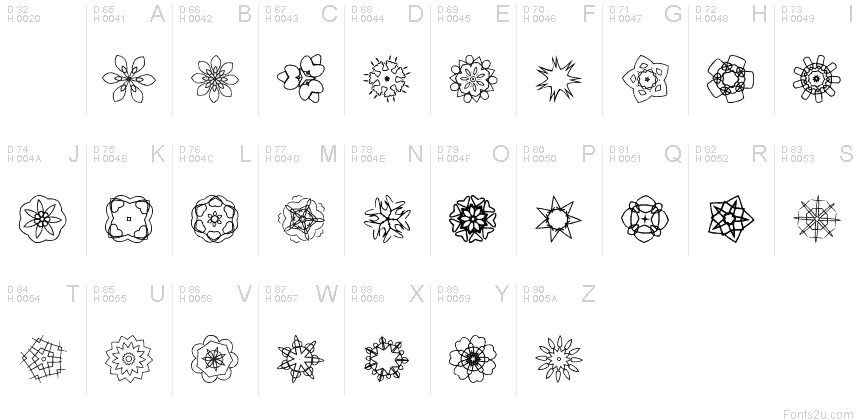
JI Kaleidoscope Bats 3
JI Kaleidoscope Bats 3 font by Jeri Ingalls is a free decorative dingbat typeface. Each glyph blooms like a tiny mandala, with petal-like loops, gear‑shaped rings, and softly squared frames that feel both playful and intricate. The thin, inky outlines invite color, pattern fills, or layering, turning simple keystrokes into richly ornamental motifs.
Using JI Kaleidoscope Bats 3, you can quickly build coloring pages, craft stickers, scrapbooking accents, invitations, logo badges, or repeating borders and patterns. This free font shines when set large so the fine lines stay crisp; pair it with a clean sans serif for text to keep the ornate symbols center stage.